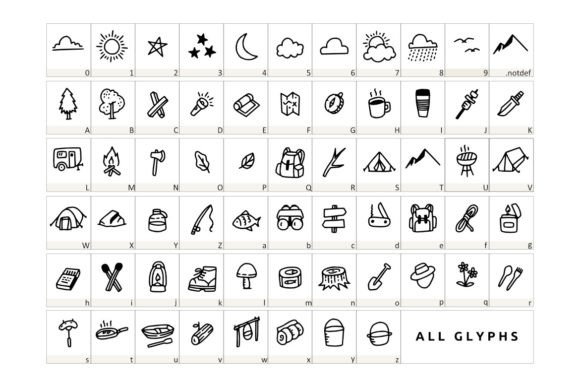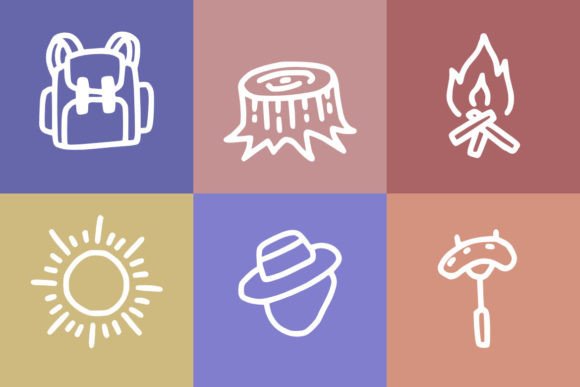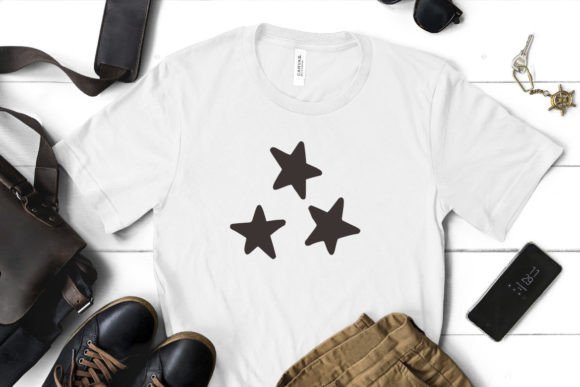
Camping Font: The Perfect Dingbats Font for Your Outdoor-Inspired Projects
Are you a designer, crafter, or outdoor enthusiast looking for a unique and fun font to add to your projects? Look no further than the Camping Font! This dingbats font is perfect for a wide variety of projects, from stickers and posters to t-shirts, cards, and apparel graphics. In this article, we’ll explore the features and benefits of the Camping Font, and show you how to make the most of this versatile font.
What is the Camping Font?
The Camping Font is a dingbats font that features a collection of camping-related icons and symbols, including tents, campfires, trees, and more. This font is designed to be fun and playful, making it perfect for projects that require a lighthearted and adventurous touch. With its unique and recognizable characters, the Camping Font is sure to add a touch of personality to your designs.
Features of the Camping Font
The Camping Font has several features that make it a great choice for designers and crafters. Some of its key features include:
- Unique and recognizable characters: The Camping Font features a range of unique and recognizable characters that are perfect for adding a touch of personality to your designs.
- Scalable: The Camping Font is scalable, making it perfect for use in a wide range of projects, from small stickers to large posters.
- Easy to use: The Camping Font is easy to install and use, making it accessible to designers and crafters of all levels.
- Versatile: The Camping Font can be used in a wide range of projects, from digital designs to print projects.
Benefits of Using the Camping Font
There are many benefits to using the Camping Font in your projects. Some of the key benefits include:
- Adds a touch of personality: The Camping Font adds a unique and playful touch to your designs, making them stand out from the crowd.
- Perfect for outdoor-inspired projects: The Camping Font is perfect for projects that require an outdoor or camping theme, such as stickers, posters, and apparel graphics.
- Increases engagement: The Camping Font can help increase engagement with your audience, particularly if you’re targeting outdoor enthusiasts or families.
- Easy to pair with other fonts: The Camping Font can be easily paired with other fonts to create a unique and visually appealing design.
Project Ideas Using the Camping Font
The Camping Font can be used in a wide range of projects, including:
- Stickers: Use the Camping Font to create fun and colorful stickers that are perfect for laptops, water bottles, or any other surface.
- Posters: Create eye-catching posters for outdoor events, camping trips, or environmental campaigns using the Camping Font.
- T-shirts and apparel: Use the Camping Font to create fun and unique designs for t-shirts, hoodies, and other apparel.
- Cards and invitations: Add a personal touch to your cards and invitations with the Camping Font.
- Apparel graphics: Use the Camping Font to create custom graphics for outdoor gear, such as hats, bags, or water bottles.
Tips for Using the Camping Font
Here are some tips for getting the most out of the Camping Font:
- Experiment with different colors: The Camping Font looks great in a range of colors, so don’t be afraid to experiment and find the perfect color scheme for your project.
- Pair with other fonts: The Camping Font can be paired with other fonts to create a unique and visually appealing design.
- Use it sparingly: While the Camping Font is fun and playful, it can be overwhelming if used too much. Use it sparingly to add a touch of personality to your design.
| Font Name | Camping Font |
| Author | YandiDesigns |
The Camping Font is a fun and versatile dingbats font that’s perfect for a wide range of projects. With its unique and recognizable characters, scalable design, and ease of use, it’s a great choice for designers and crafters of all levels. Whether you’re creating stickers, posters, t-shirts, or apparel graphics, the Camping Font is sure to add a touch of personality and whimsy to your designs. So why not give it a try and see what amazing projects you can create?